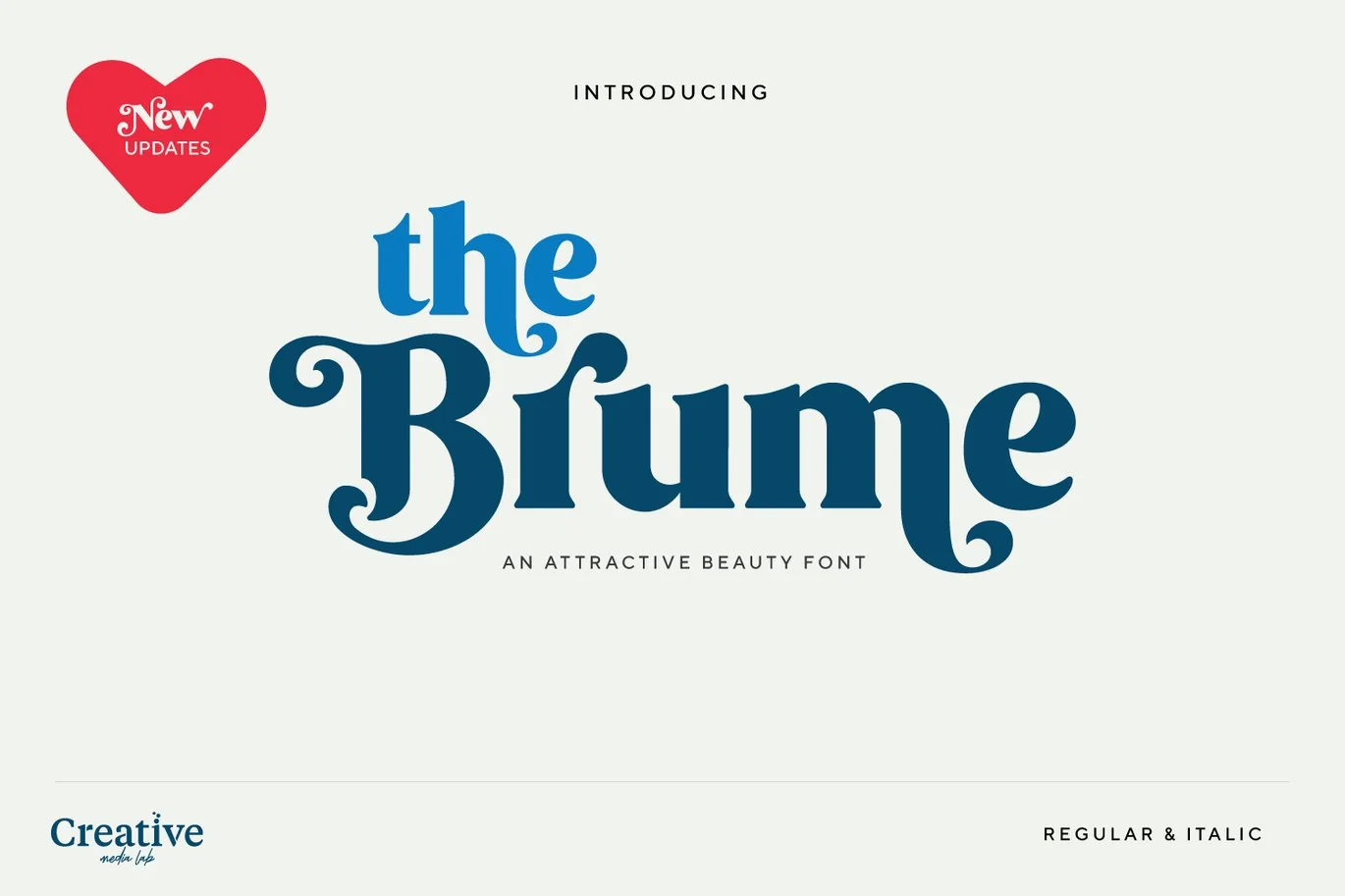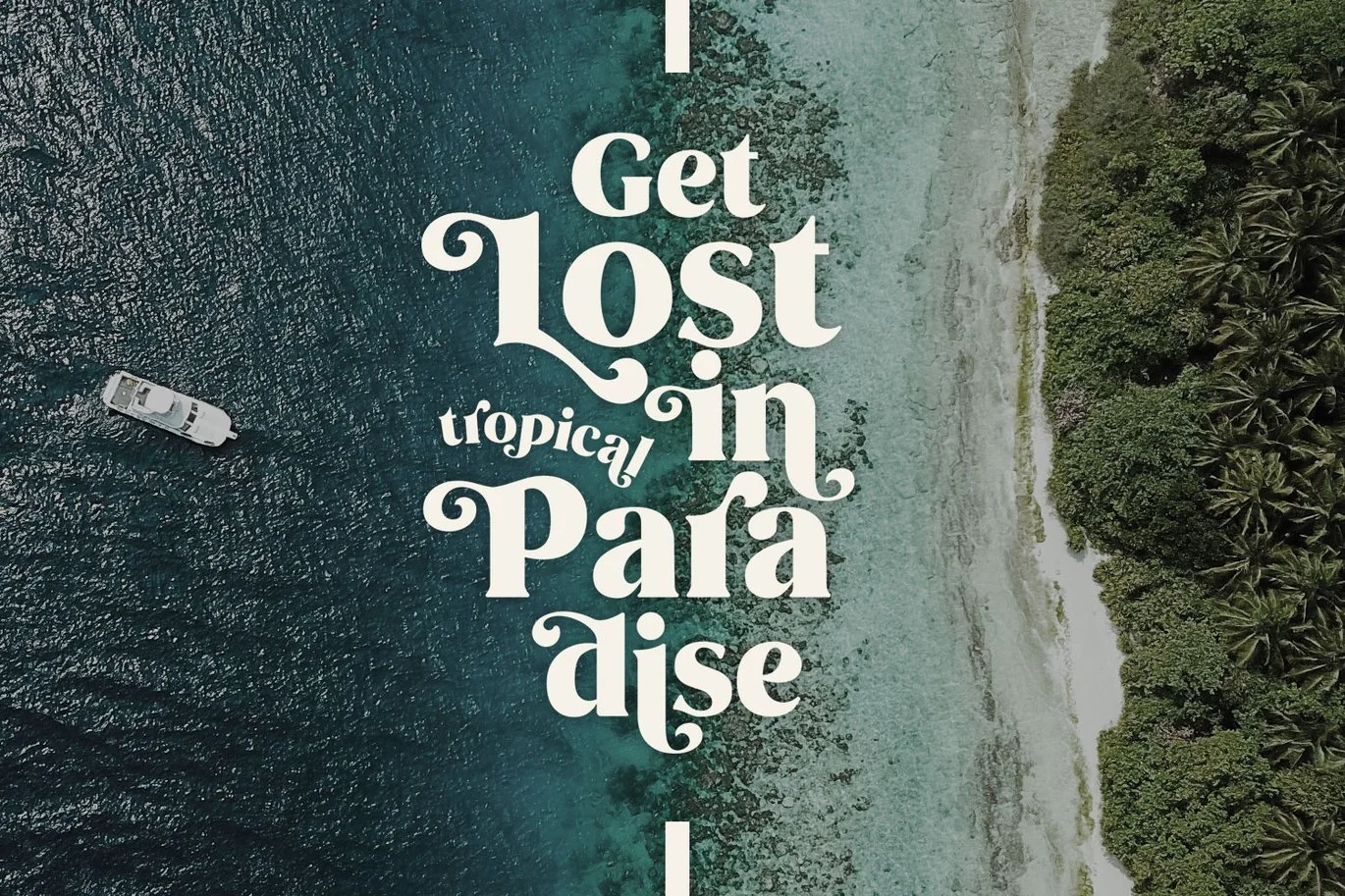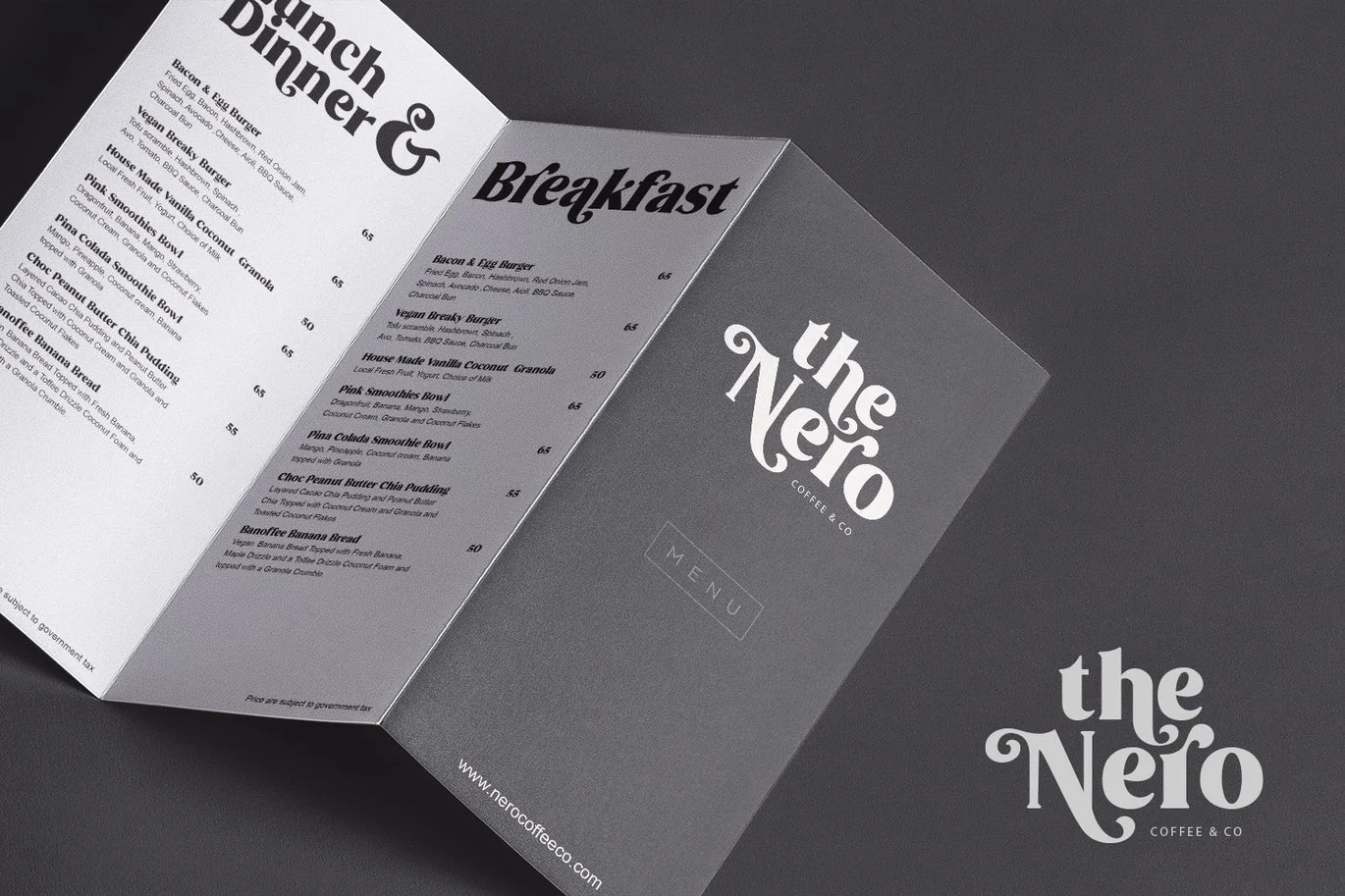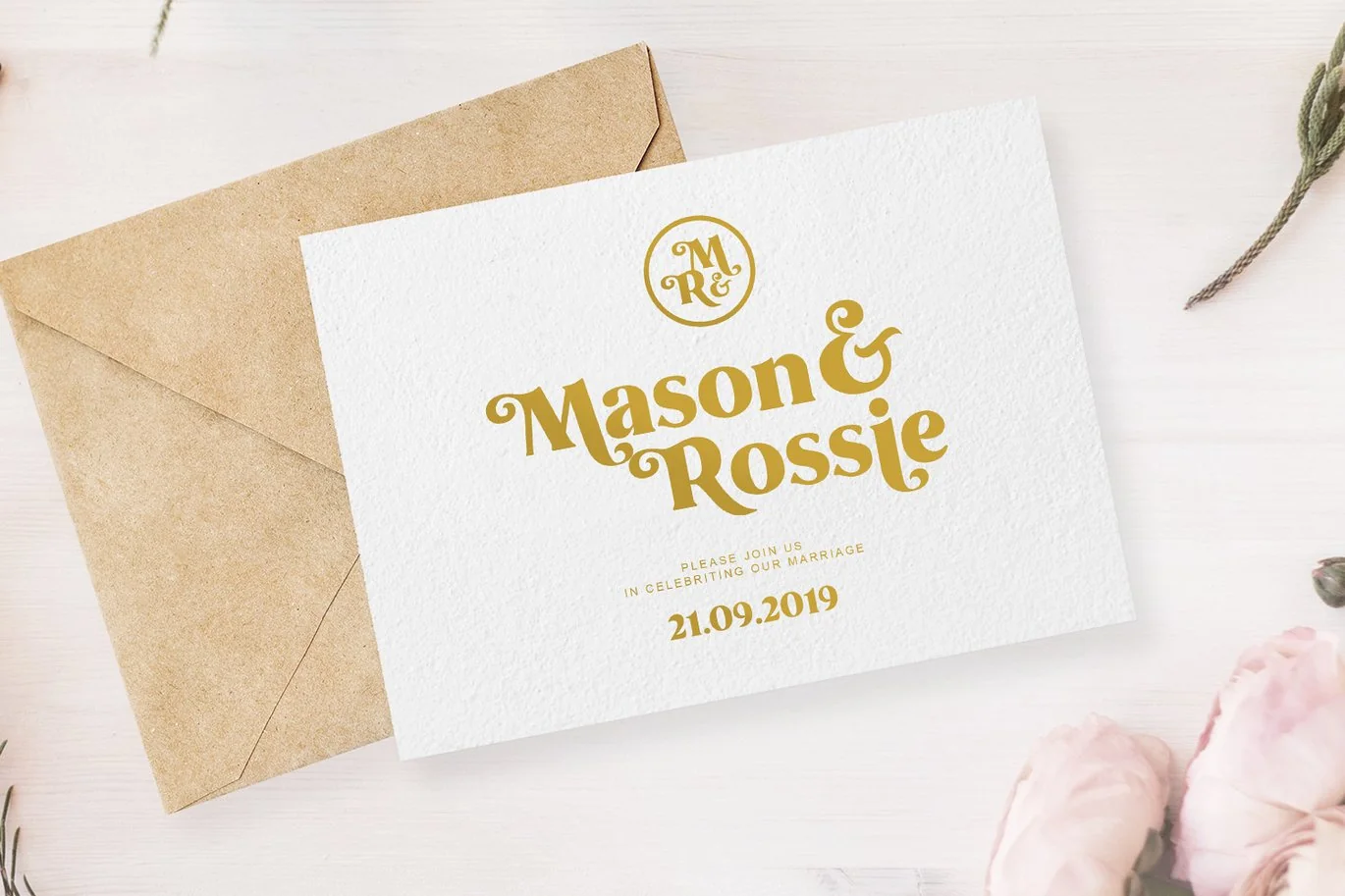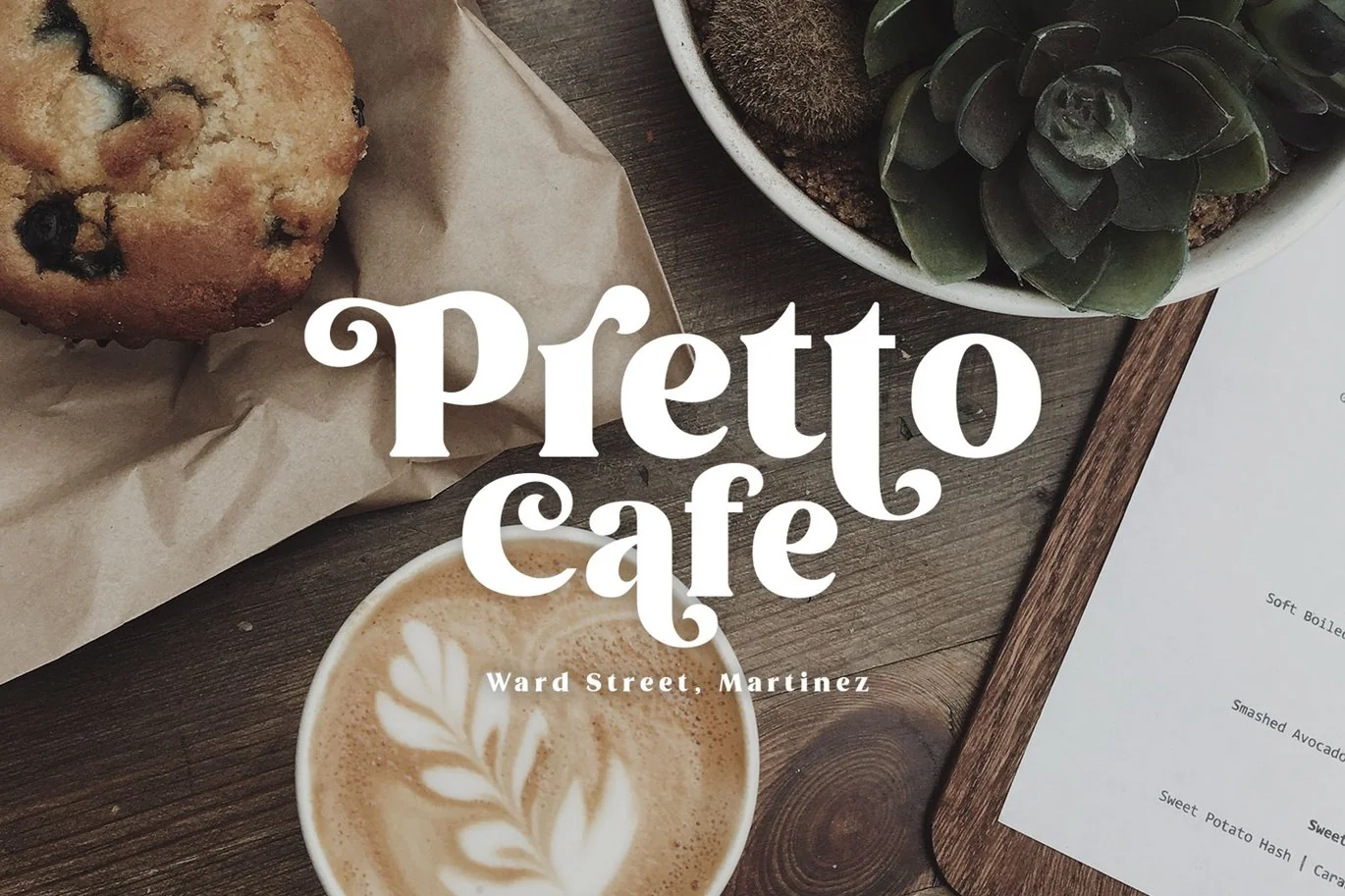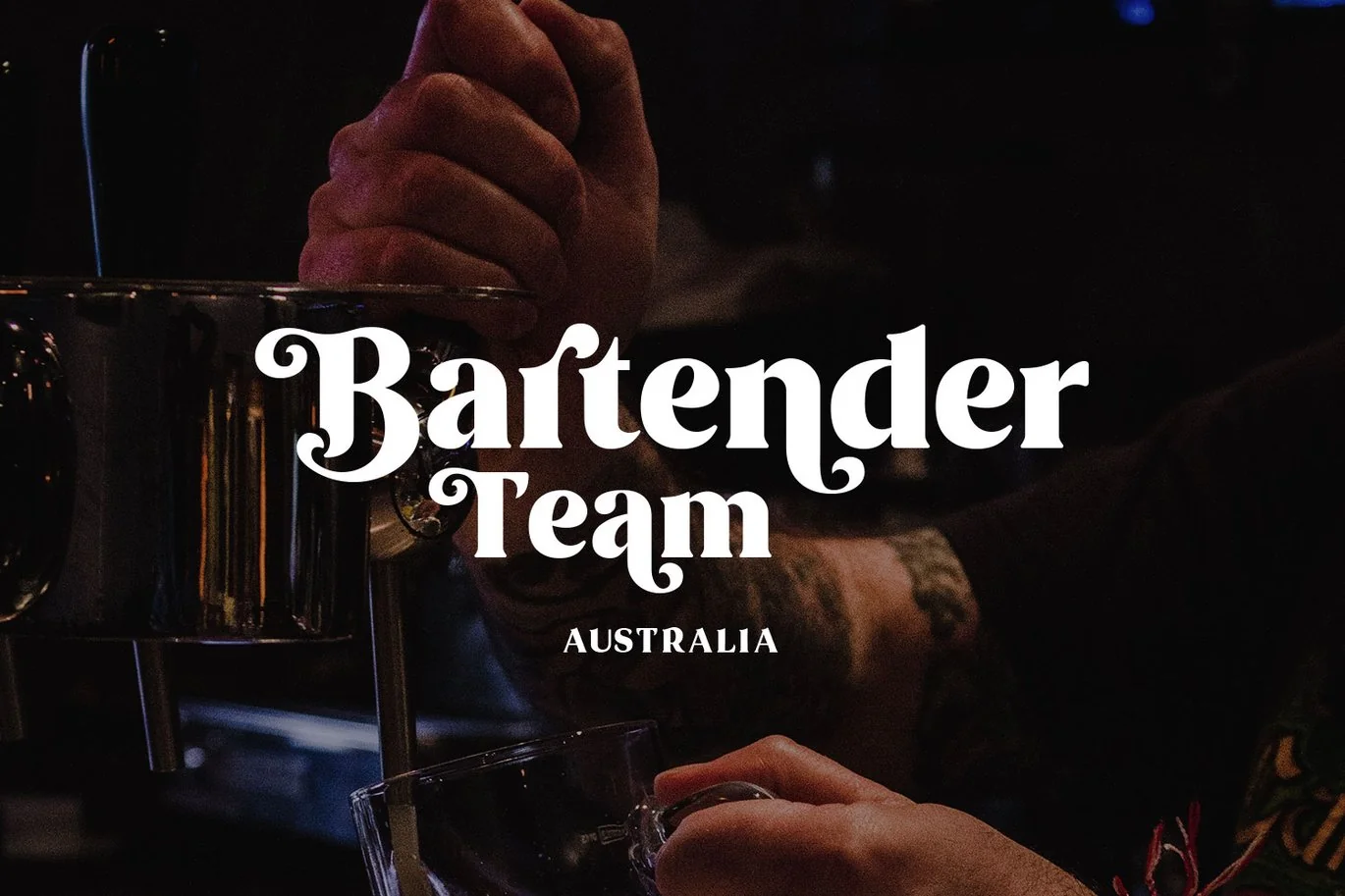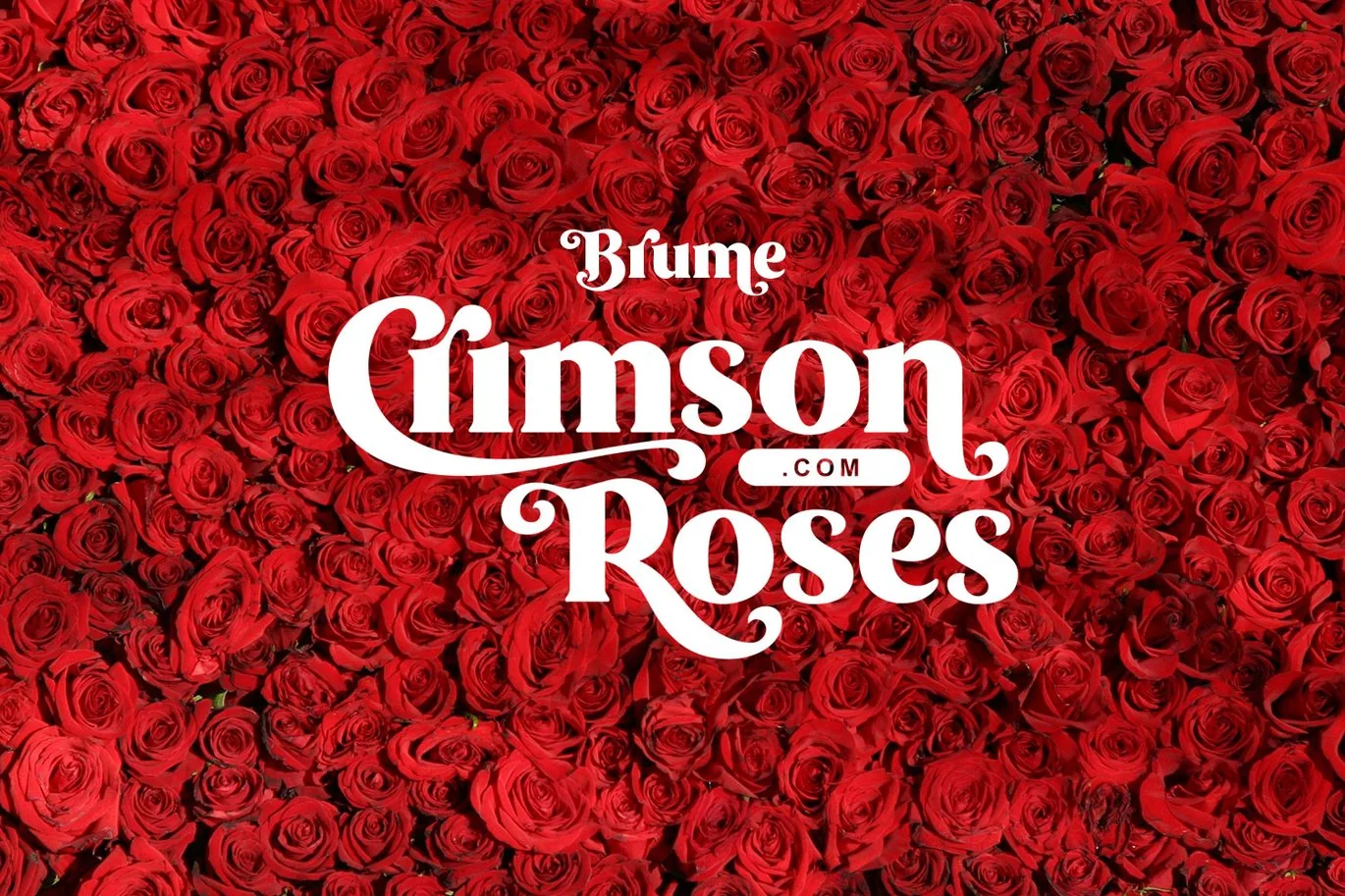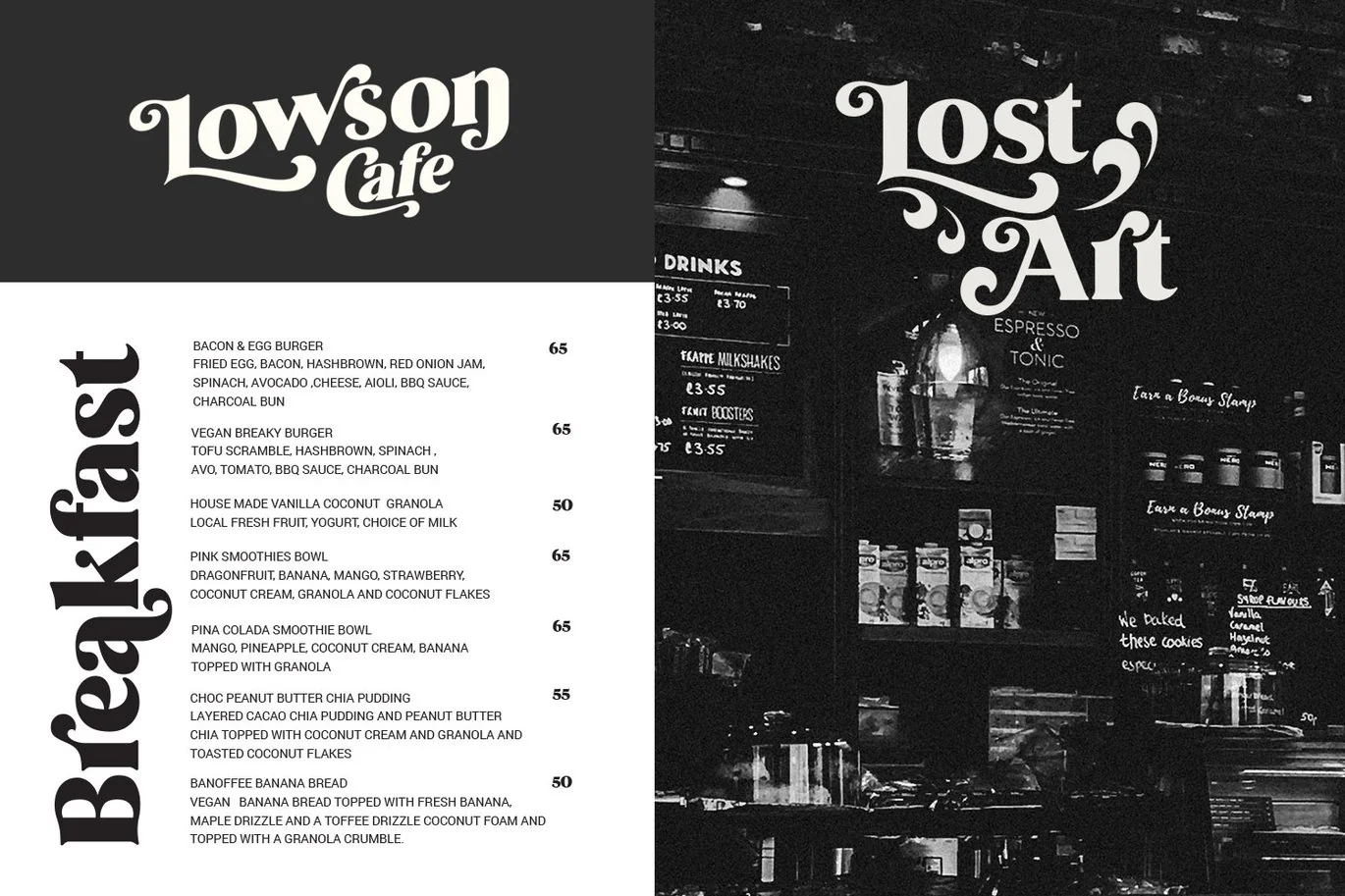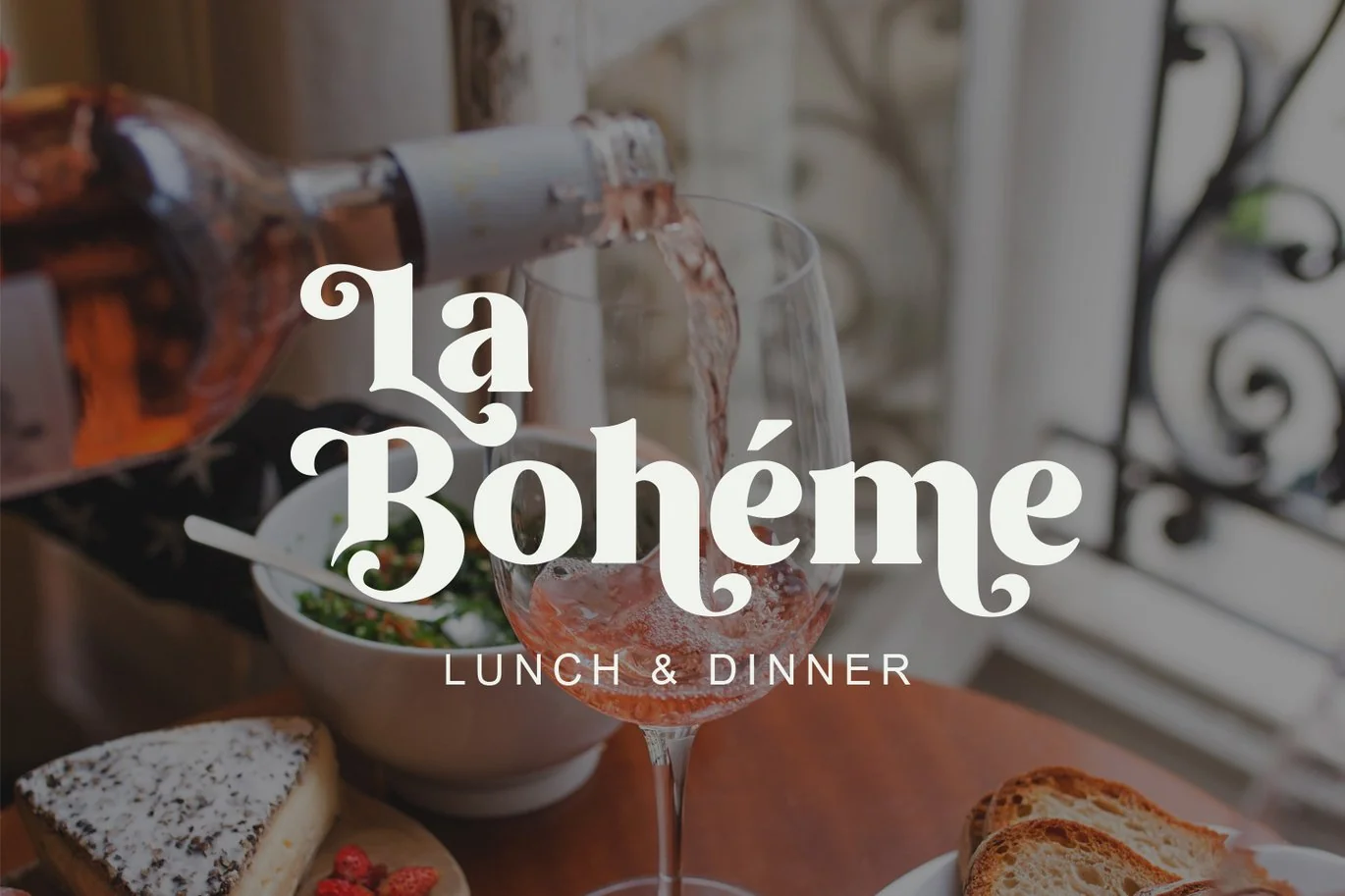
Brume Font
Easy to read, modern and elegant look but stylist”, this will be the first words that your client says to your design using this font. Comes with uppercase and lowercase. It has many alternates character with nice curve that you can arrange to create a nice logo lettering, or use it as a display face and add a few alterations to it to make a beautiful.
Each characters are carefully crafted with clean path lines.
Brume font is best for logo lettering, headlines, product packaging, tshirt design, wedding theme, poster, book cover, wedding invitation, christmas theme and more